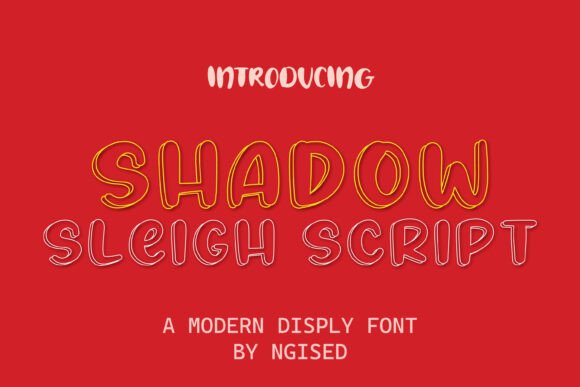
Introduction to Shadow Sleigh Script Font
As designers, we’ve all been there – stuck on a creative project, searching for that perfect font to bring our vision to life. The holiday season is a magical time to get creative, and for many of us, it’s the perfect excuse to break out our favorite festive fonts. Among the many options available, one font stands out for its unique charm and elegance: the Shadow Sleigh Script Font.
This high-quality script font is a must-have for any design resource, offering a transparent background and seamless compatibility across various design software. With its free download available in OTF format, designers can easily incorporate it into their creative projects. Whether you’re working on a DIY Christmas card or a professional holiday invitation, the Shadow Sleigh Script Font adds a whimsical touch that’s sure to delight.
What sets this font apart is its ability to add depth and dimension to your text, thanks to its distinctive shadow effect. Perfect for creating a festive atmosphere, the Shadow Sleigh Script Font is a valuable addition to any designer’s toolkit.
Key Features of Shadow Sleigh Script Font
- High-quality design resource ideal for creative projects, such as invitations, greeting cards, and wedding stationery.
- Unique, handwritten style with subtle texture and shading effects, creating a sense of depth and dimension.
- Features a transparent background, allowing for easy layering and manipulation in design software.
- Includes a range of ligatures and swashes, adding an extra touch of elegance and sophistication to any design.
Honest Review: Shadow Sleigh Script Font
As a designer, I’m always on the lookout for high-quality fonts that can elevate my creative projects. Recently, I had the chance to try out the Shadow Sleigh Script Font, and I must say, it’s a great addition to any design resource.
- ✨ The font is incredibly versatile and can be used for a wide range of creative projects, from wedding invitations to social media graphics.
- ✨ The script font has a beautiful, elegant feel that’s perfect for adding a touch of sophistication to your designs.
- ✨ The font is easy to use and can be customized to fit your specific design needs.
- ⚠️ The font may not be suitable for designs that require a transparent background, as the script can be quite dense and may not work well with images or graphics.
- ⚠️ Some users may find the font to be a bit too ornate for certain design projects.
Overall, I’m impressed with the Shadow Sleigh Script Font. It’s a high-quality design resource that can add a touch of elegance to any creative project. If you’re looking for a beautiful script font that’s easy to use and customize, this is definitely worth checking out.
The Shadow Sleigh Script Font is a high-quality design resource ideal for creative projects that require a unique, elegant touch. This free download offers a transparent background, making it perfect for overlaying on images or backgrounds.
The Shadow Sleigh Script Font is ideal for wedding invitations, holiday cards, and other creative projects that require a touch of elegance. It’s also perfect for overlaying on images or backgrounds to create a unique visual effect.